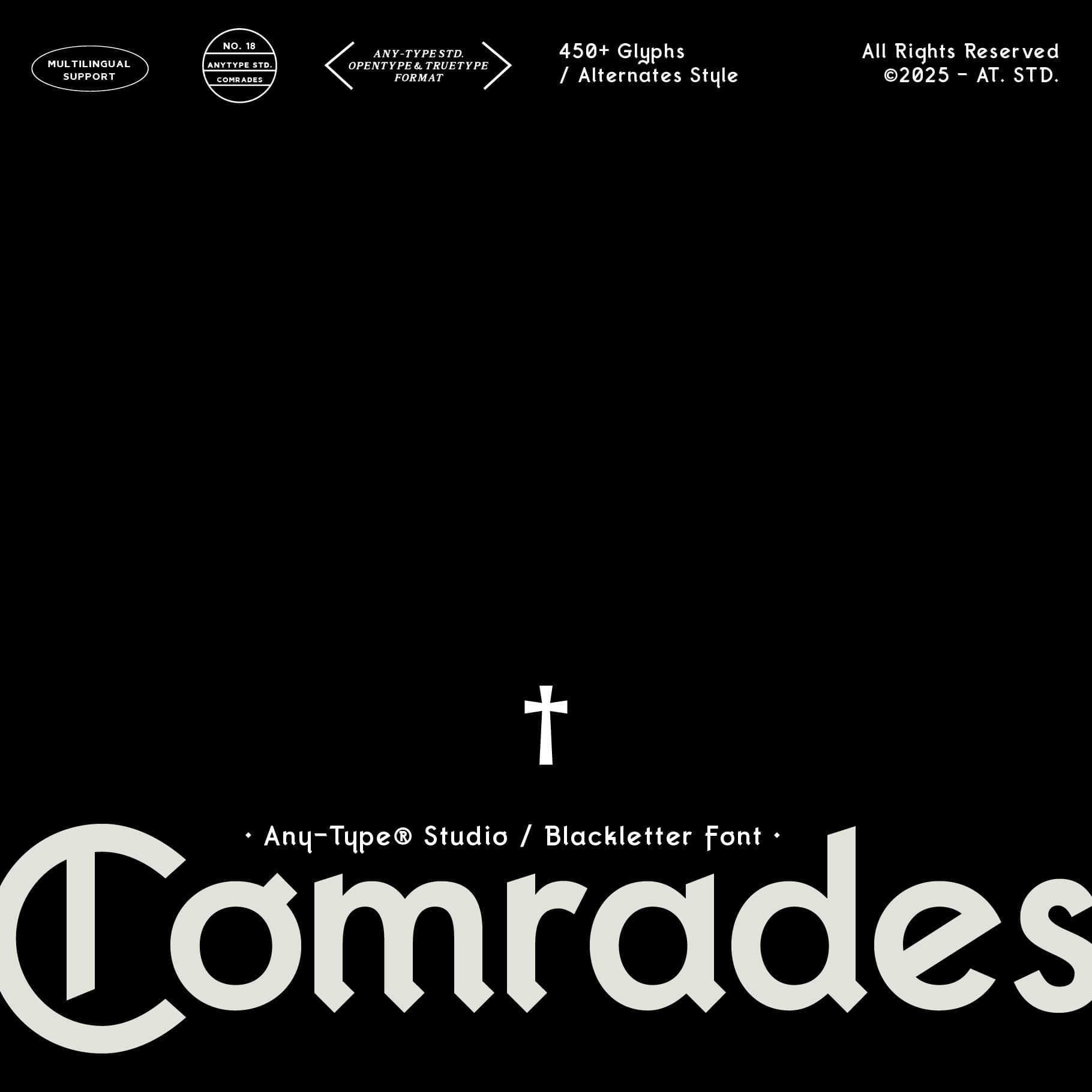
<p>Embrace the striking aesthetics of Comrades, a distinguished display font that seamlessly merges the old-world charm of blackletter with contemporary flair. Crafted by Any-Type Studio, this typeface is characterized by its geometric precision and sharp edges, which communicate strength and unity. Meanwhile, the integrated smooth, rounded elements ensure legibility and adaptability across a breadth of design applications. From branding and posters to editorial layouts, album art, and apparel, Comrades is tailored for projects that explore themes of solidarity, activism, or the juxtaposition of historical and modern styles.</p><p> </p><p><strong>Features:</strong></p><ul><li><p>Multilingual support for diverse applications.</p></li><li><p>Alternate characters for creative flexibility.</p></li><li><p>Over 450 glyphs providing extensive design possibilities.</p></li></ul><p></p>